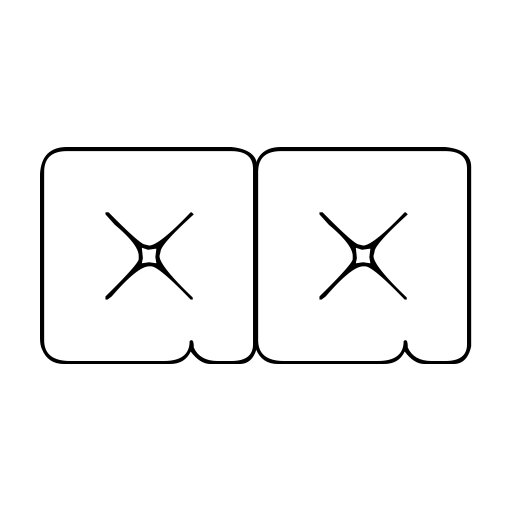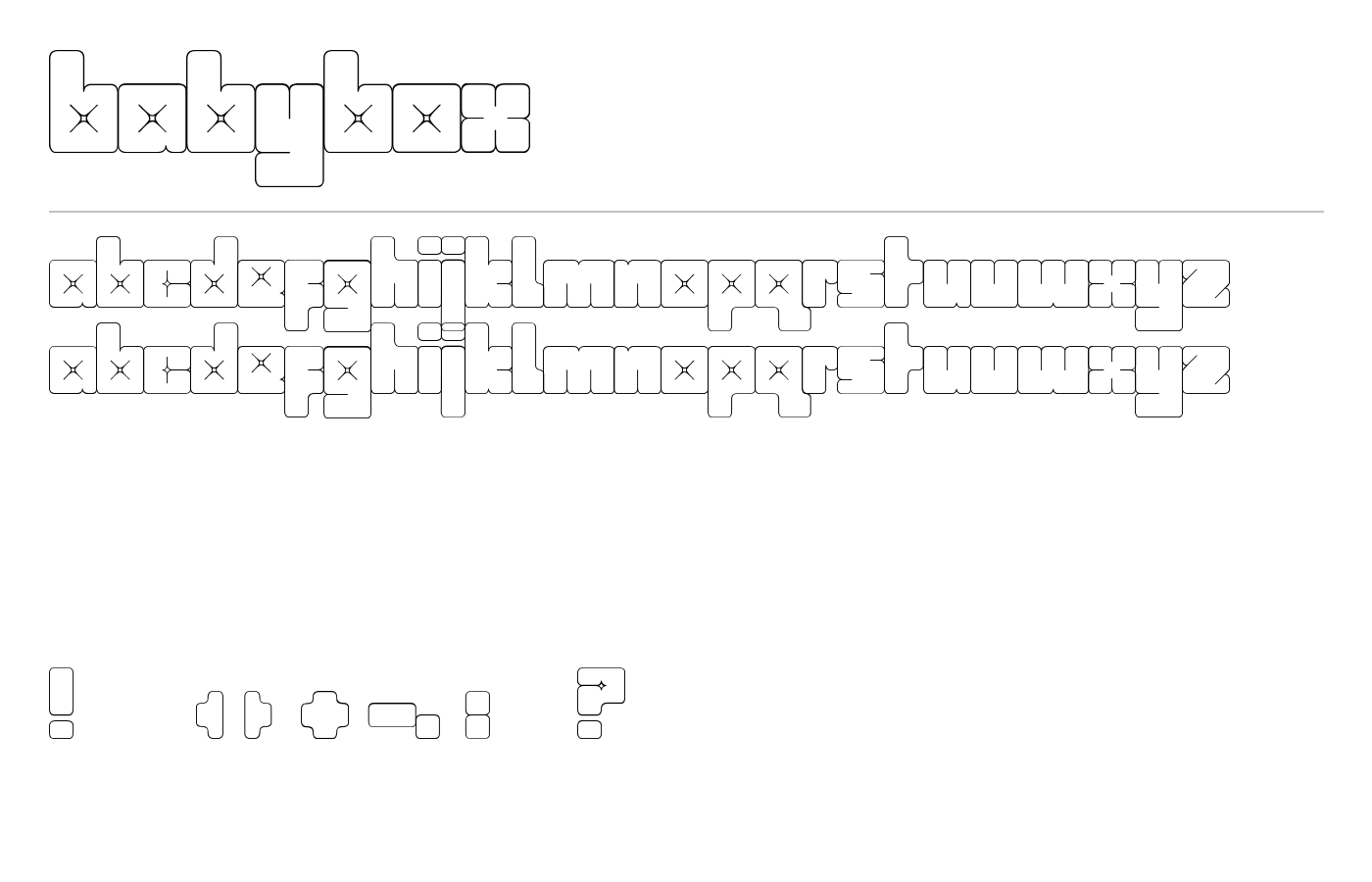
Babybox is a playful, rounded sans serif font characterized by its bold weight and wide, geometric forms with soft corners. Its unique outline style and star-shaped cutouts inside each letter give it a whimsical, modern feel, making it ideal for creative, fun projects like children's branding, posters, or playful headlines. This font brings a sense of friendliness and contemporary charm, perfect for attention-grabbing designs in a lighthearted context.
babybox Font